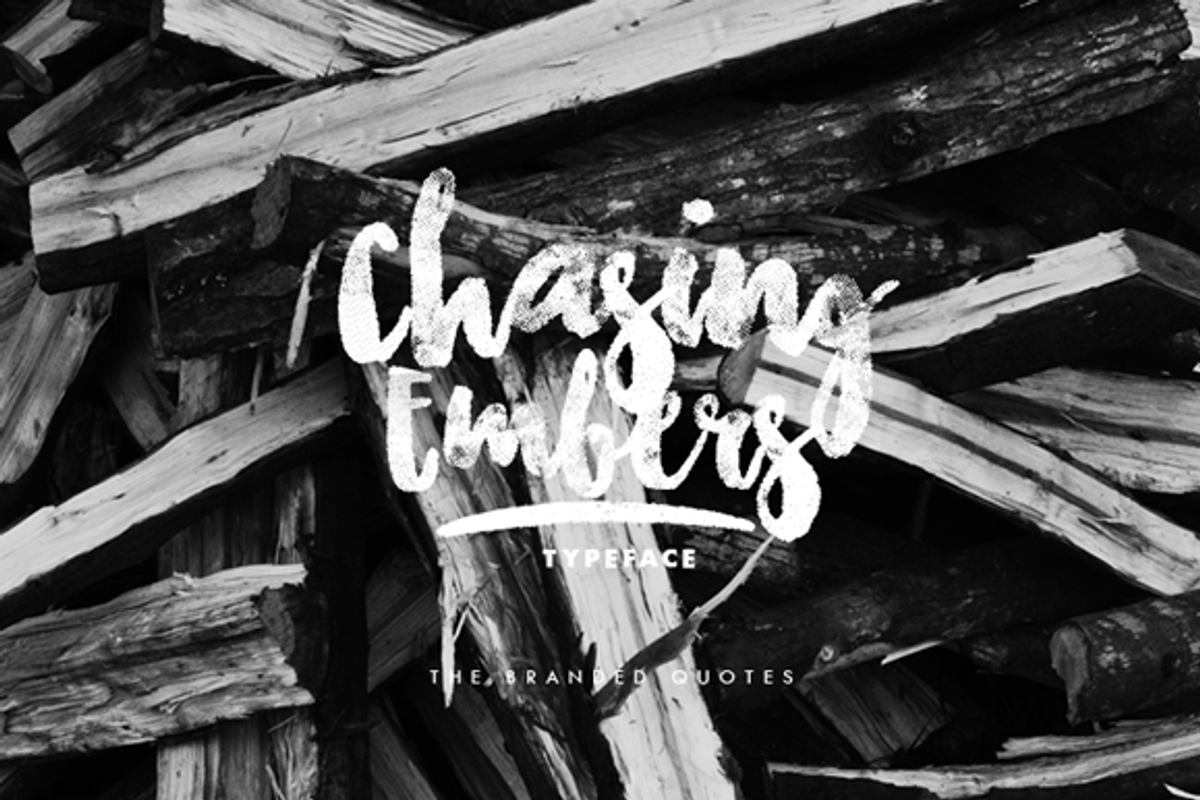
Chasing Embers Typeface Free Download
Chasing Embers Typeface Free Download is a bold and unique display typeface designed to bring an intense, fiery, and dramatic feel to your designs. With its sharp edges and striking presence, it’s perfect for projects related to adventure, sports, gaming, and cinematic titles. The font's dynamic style captures attention and creates an impact, making it ideal for headlines, posters, logos, and branding.
Whether you're working on high-energy graphics or a brand with an edgy aesthetic, Chasing Embers delivers a modern, powerful look that grabs the viewer's attention.